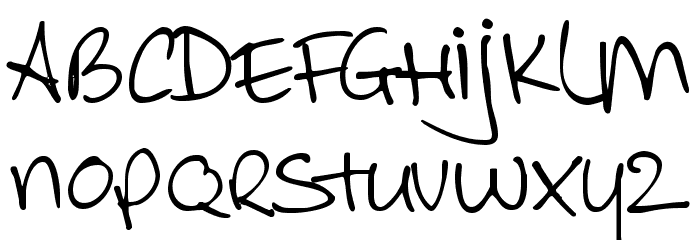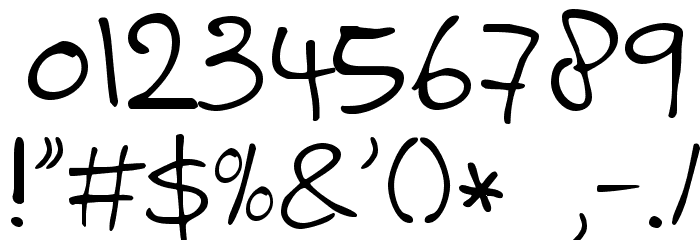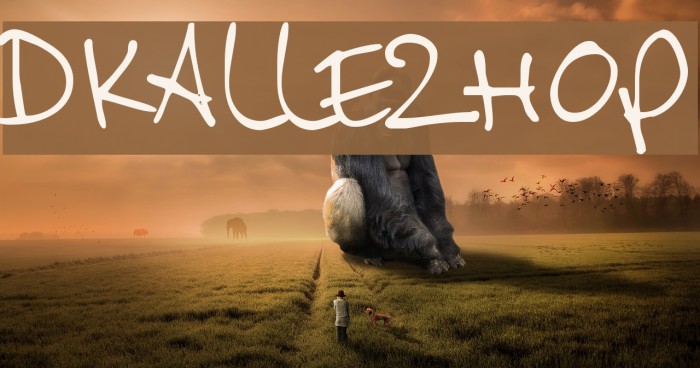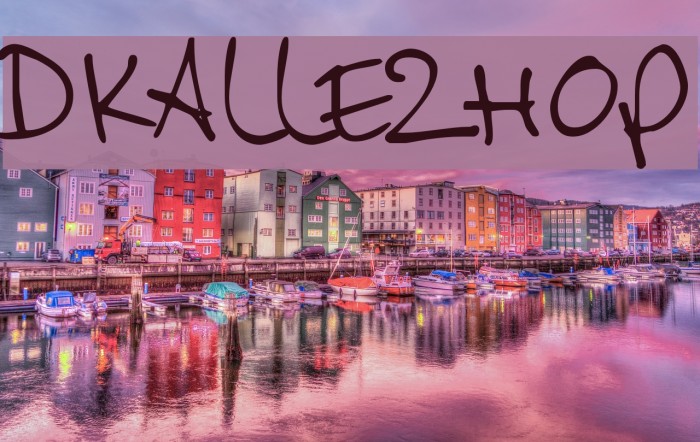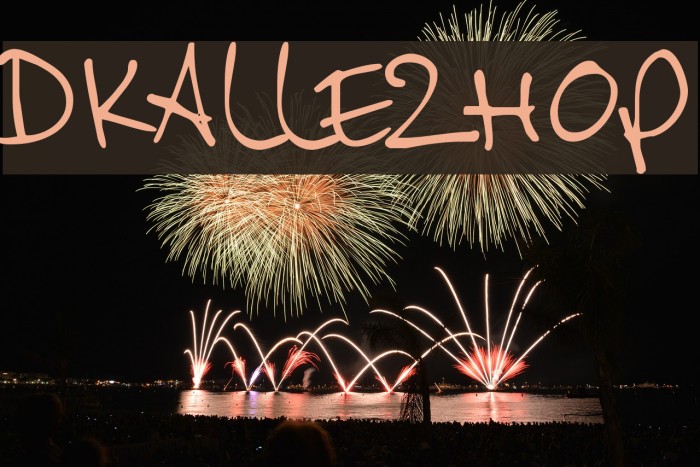
DKAllezHop Font
This font exudes a playful and energetic vibe, characterized by its handwritten style that mimics the fluidity and spontaneity of casual penmanship. The letters are slightly slanted, giving a sense of motion and informality. The strokes are uneven, with varying thickness that adds to its dynamic appearance. The characters are well-spaced, maintaining legibility while preserving the informal aesthetic. The numerals and special characters follow the same lively style, making the font versatile for creative projects.
A playful, handwritten font with a dynamic and informal style.
- Proposed Projects: Ideal for greeting cards, children's books, playful branding, and casual social media graphics.
- Category: Handwritten
- Overall Style: Casual
- Use Case: Headlines, Informal text, Creative projects